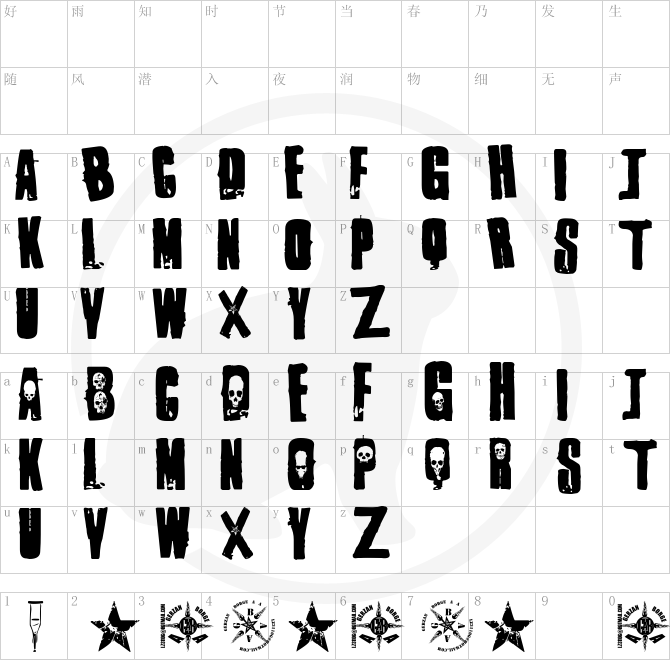
- Font Name:1 Punk
- Version:1.0 GERSAN BORGE triton company DIC/2011
1-Punk.ttf is a very beautiful artistic font, 1-Punk.ttf is widely used in the design and printing of various books and pictures,1-Punk.ttf has a strong visual impact,1-Punk.ttf is a commonly used font in newspapers, magazines and books, and is used in posters, e-commerce Poster design, store design, logo design, font design and other fields.1-Punk.